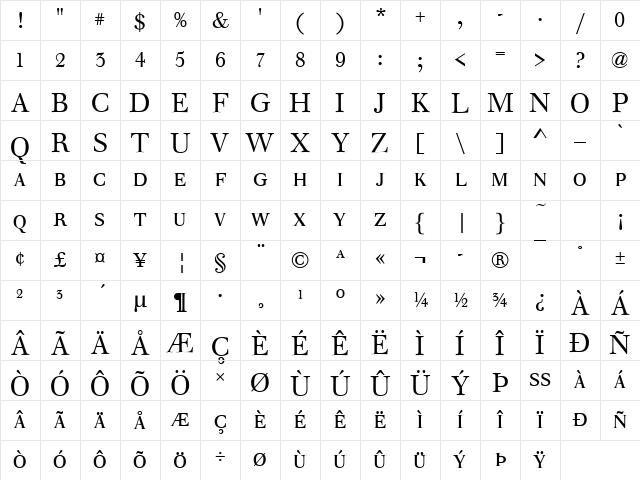
WalbaumStaDCD Regular Free Font
Design Context for WalbaumStaDCD
WalbaumStaDCD is a composed and adaptable typeface that performs quietly and consistently across a wide range of design contexts.